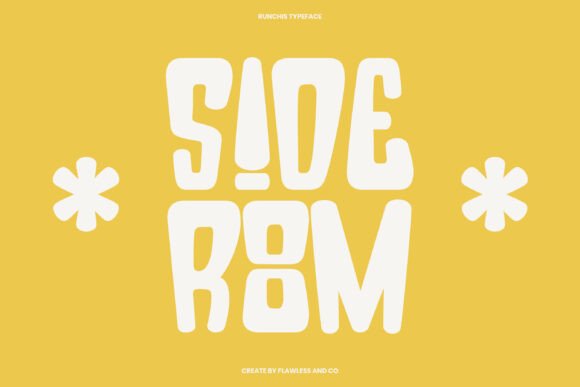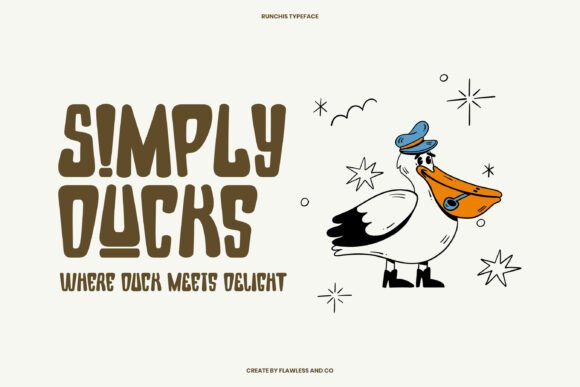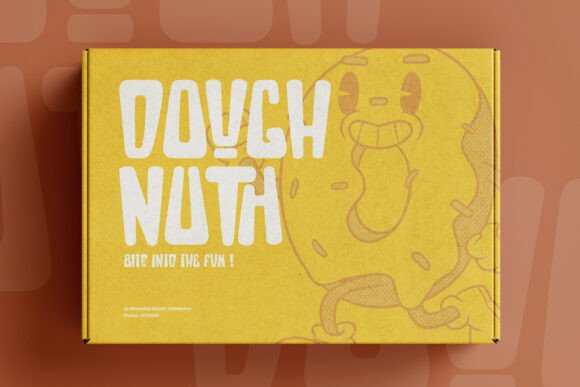
Introduction to Runchis Font
Have you ever stumbled upon the perfect font that makes your creative project pop? That moment when the words and design elements come together in perfect harmony, and you know you’ve found your match? For designers, that ‘aha’ moment is priceless. It’s the culmination of hours of searching, experimenting, and refining your design. And when you finally land on the right font, it’s like a breath of fresh air. This is exactly what the Runchis Font promises to deliver – a loud, bouncy, and full-of-character display font that brings fun to the forefront.
With its chunky curves, playful alternates, and a unique retro-modern blend, the Runchis Font is a design resource that speaks volumes. Whether you’re working on a brand, a bistro, a toy label, or packaging design, this font is sure to make your message unmissable. And the best part? It’s available for free download, allowing you to access its full range of glyphs, swashes, and alternate characters with ease.
Key Features of Runchis Font
- High-quality design resource ideal for creative projects, offering a unique and stylish look.
- Features a transparent background, allowing for seamless integration with various design elements.
- Comes in a single size, making it easy to use across various design projects.
- Designed with high resolution in mind, ensuring crisp and clear text display.
- Perfect for designers and artists looking for a high-quality, free design resource to elevate their creative project.
Honest Review: Runchis Font
I recently came across Runchis Font while searching for a design resource for a creative project, and I must say it’s been a pleasant surprise. This free download has been a game-changer for me.
- What works well: ✨ The font is incredibly versatile and can be used in a variety of contexts, from branding to editorial design. It’s also incredibly easy to use, with a transparent background that makes it blend seamlessly with any design.
- What works well: ✨ The font is available in multiple weights, making it perfect for creating a visual hierarchy in your design. The high quality of the font is also evident in its crisp lines and smooth curves.
However, I do have a few minor complaints. ⚠️ The font could benefit from a few more glyphs, particularly for languages that use non-Latin scripts. Additionally, the font may not be suitable for large-scale print projects due to its relatively small file size.
Overall, I’m thoroughly impressed with Runchis Font. It’s a high-quality design resource that’s perfect for any creative project. I’d definitely recommend it to fellow designers looking for a reliable and versatile font.
How to Use Runchis Font
Runchis Font is a high-quality design resource that can be used in a variety of creative projects. With a transparent background, it offers a versatile and modern look that can be easily integrated into any design.
Tips for Getting the Most Out of Runchis Font
To get the most out of Runchis Font, experiment with different font sizes, colors, and styles to create a unique and eye-catching design. You can also use the font in combination with other design elements to create a cohesive look.
Runchis Font is ideal for a variety of creative projects, including logos, brochures, posters, and social media graphics. Its modern and versatile design makes it a great choice for any design project.
Can I use the Runchis Font with a transparent background?
Yes, the Runchis Font supports transparent backgrounds, making it ideal for use in web design and other applications where a transparent font is required. To use the font with a transparent background, simply use the font in a design application that supports transparency, such as Adobe Photoshop or Illustrator. You can then adjust the font’s settings to include a transparent background, depending on the